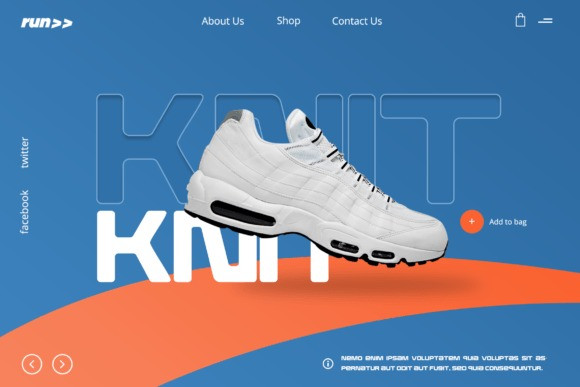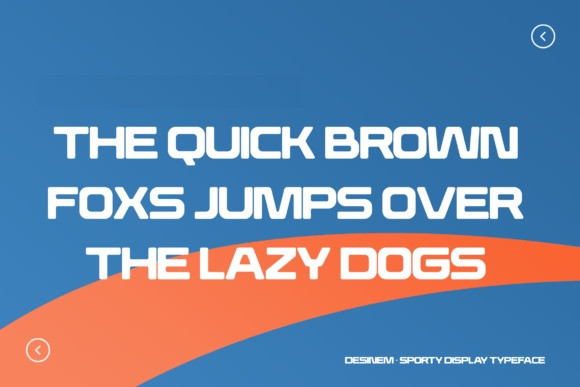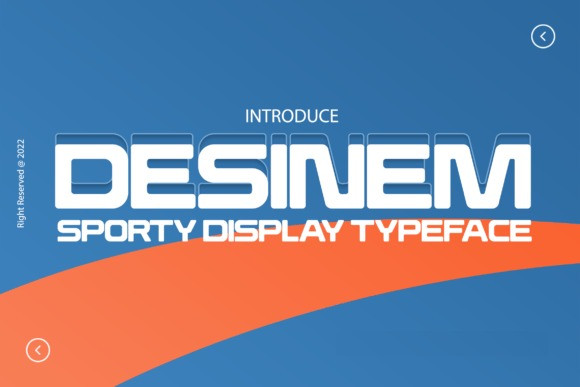
Desinem – Sporty Display Typeface
Desinem is a bold sans serif display font featuring modern, sporty characters. Add this font to your most creative ideas, and notice how it makes them stand out!